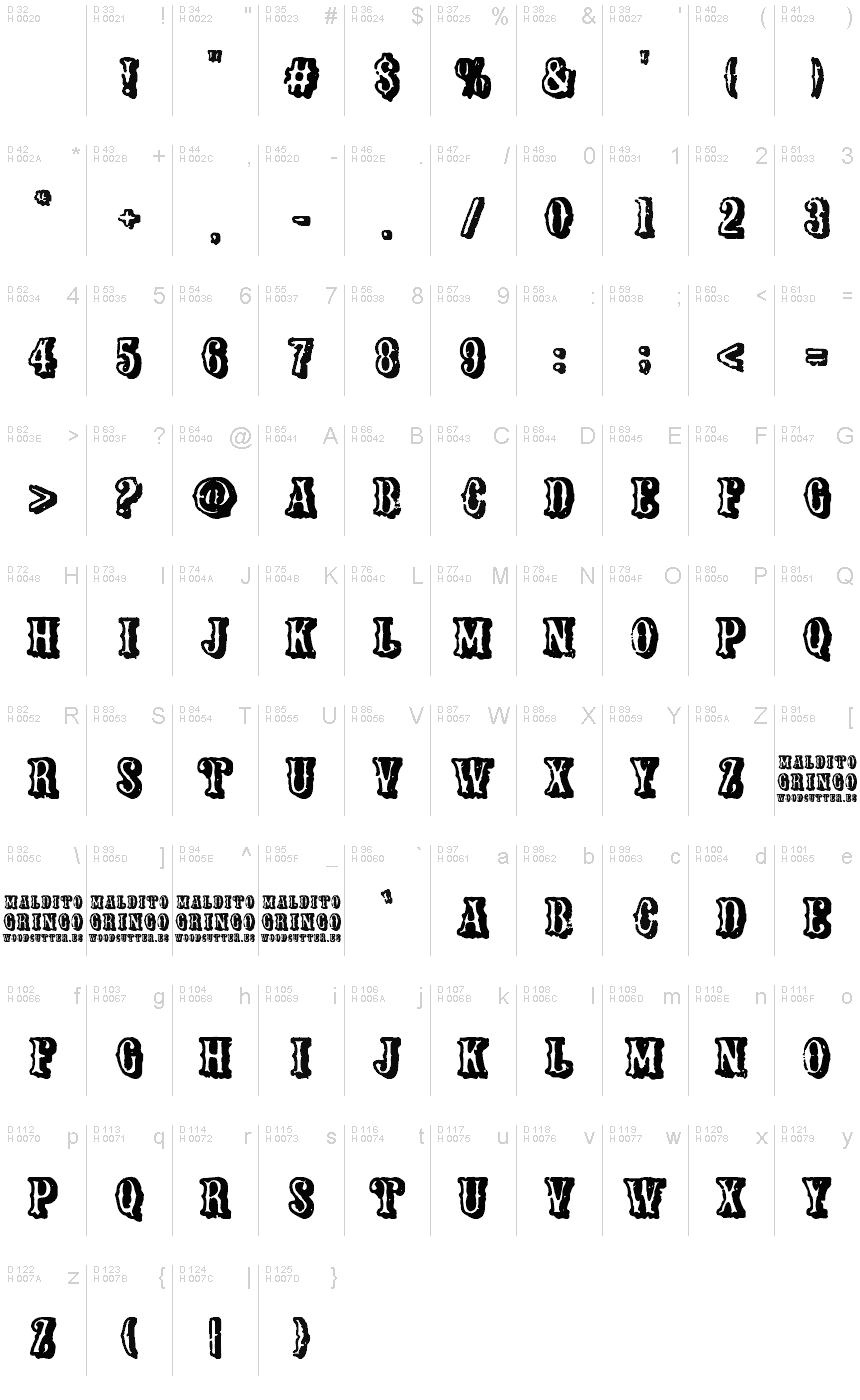
Maldito Gringo
Maldito Gringo is a bold, condensed display font that exudes a rugged, weathered aesthetic. Rooted in the gritty charm of the American West, this typeface features an eroded, textured appearance that evokes a sense of rustic authenticity. The angular letterforms, accentuated by their condensed width, lend an assertive, almost defiant quality to the typography.
Maldito Gringo's unique character makes it well-suited for a variety of design applications, from attention-grabbing headlines and impactful logos to signage and packaging that demands a strong, uncompromising visual presence. Its versatility extends beyond the realm of western-inspired themes, allowing designers to leverage its distinct personality in diverse creative contexts.